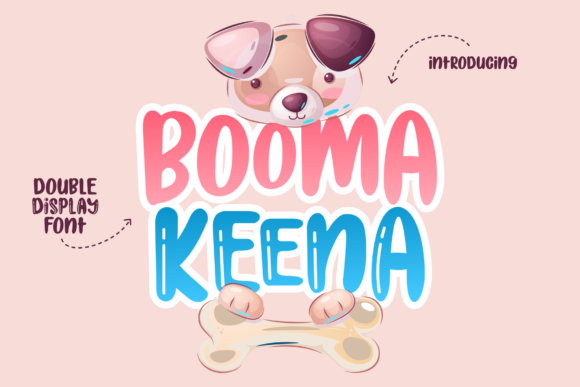
The Joy of Booma Keena Font: A Designer’s Delight
I still remember the time I was working on a children’s activity book project, and I was struggling to find the perfect font to match the playful and bubbly vibe of the illustrations. That’s when I stumbled upon Booma Keena, a cute and jolly display font that instantly brought the project to life. In this article, I’ll share my experience with Booma Keena, its features, and how to make the most of it in your designs.
An Honest Review of Booma Keena
What I Love About Booma Keena ✨
- ✅ Playful and bubbly personality that adds a touch of whimsy to any design
- ✅ Perfect for children’s activity books, school projects, and other kid-friendly content
- ✅ Easy to read and understand, even at smaller font sizes
- ✅ Highly versatile and can be used for headings, titles, and short paragraphs
- ⚠️ Limited character set, which may not be suitable for longer texts or paragraphs
- ⚠️ May not be the best choice for more formal or professional designs
The Backstory of Booma Keena
Booma Keena was designed by a team of creatives who wanted to create a font that embodies playfulness and authenticity. The font is inspired by the joy of childhood and the beauty of simplicity. Whether you’re working on a children’s activity book or a school project, Booma Keena is the perfect choice to add a touch of whimsy and fun to your designs.
Q: What is Booma Keena font?
A: Booma Keena is a cute, bubbly, and jolly display font that’s perfect for children’s activity books, school projects, and other kid-friendly content.